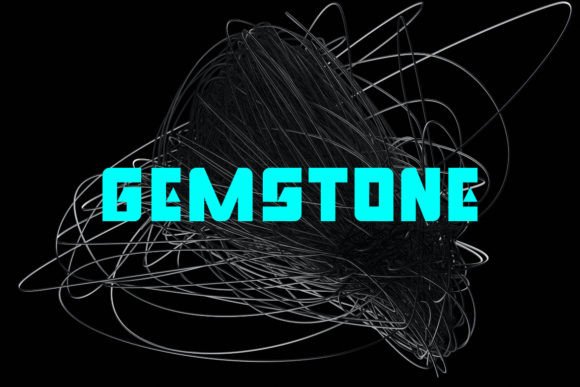
Step into the world of Venfro, a display font that exudes boldness, confidence, and dynamism. Crafted by the skilled hands of ffeeaarr, this font is a true masterpiece, designed to add an assertive touch to your creative endeavors.
With its thick, blocky letters, Venfro commands attention and leaves a lasting impression. Its strong and confident strokes convey a sense of authority and power, making it the perfect choice for headlines, logos, and any design element that demands attention.
Immerse yourself in the versatility of Venfro. Its captivating design shines in a myriad of applications, from branding and marketing materials to social media posts and website designs. Let Venfro elevate your designs and make a statement that resonates with your audience.
Unleash your creativity and explore the boundless possibilities of Venfro. Dive into a world where your designs come alive with an aura of strength and confidence. Transform your ideas into visual masterpieces that captivate and inspire.